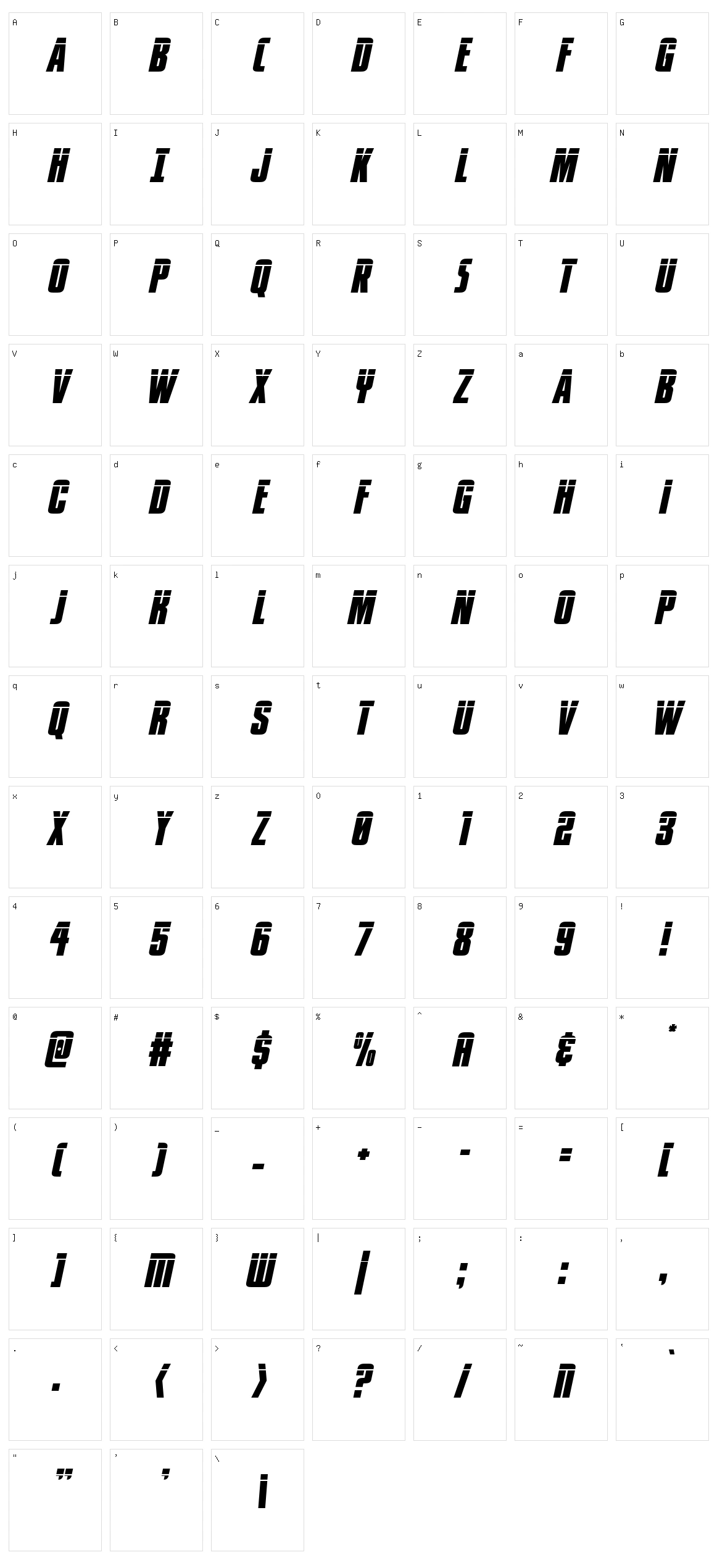
The free font Phenomicon is carefully designed by Iconian Fonts, showcasing a thoughtful balance of creativity and usability and falls under the Sans serif font style. When you download the ZIP file, it contains only 392.93 KB of font files, making it lightweight and quick to download. Please review the license details below to understand permitted usage and distribution rights. If license information is not available, we recommend using this font for personal projects only or contacting the author directly for commercial usage permissions.
This font comes with the following 25 versions: Regular, Italic, Semi-Italic, Super Italic, Leftalic, Semi-Leftalic, Super-Leftalic, Condensed, Condensed Italic, Expanded, Expanded Italic, Wide, Wide Italic, 3D, 3D Italic, Gradient, Gradient Italic, Halftone, Halftone Italic, Laser, Laser Italic, Spaced, Spaced Italic, Title and Title Italic.